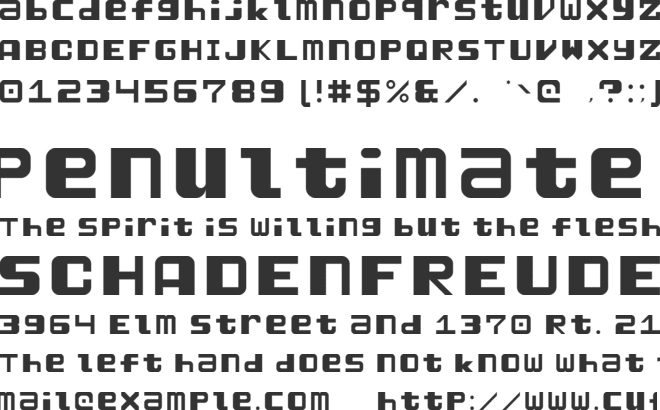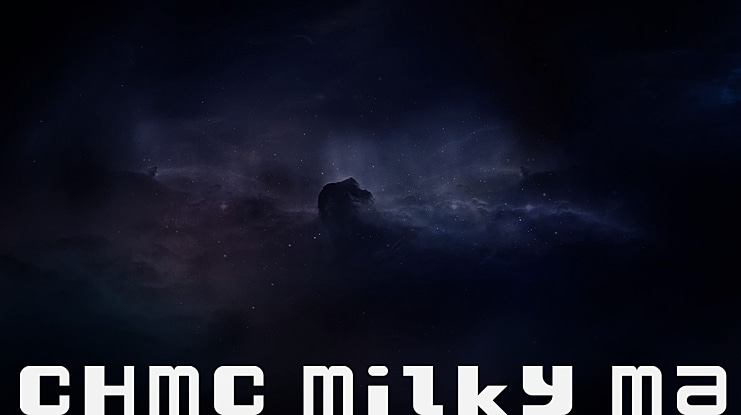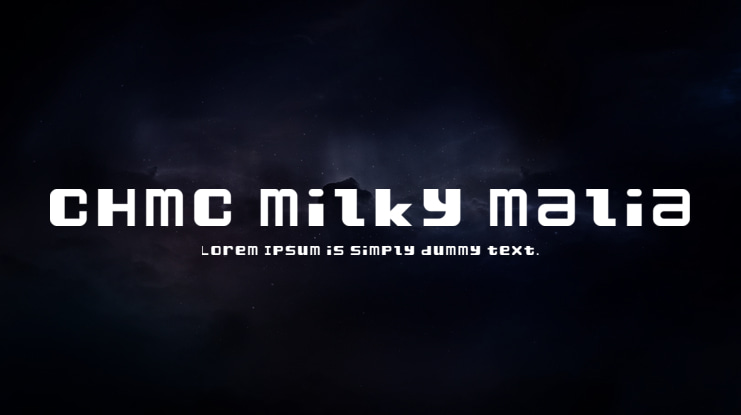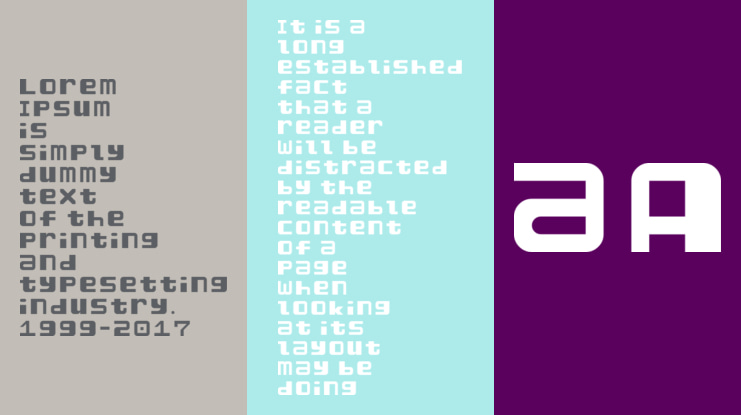
CHMC Milky Malia Font
Milky Malia is a techno font I made in Fontstruct. This is my first font to be made since I didn't use my old computer (the reason it's too old and some of the keys were malfunctioned.) The name comes from the characters in Twin Princess of Wonder Planet, named Moon Malia, the queen of Moon Kingdom and Milky, the princess of Moon Kingdom, Shade's little sister. I am sorry for being very, very, very late to upload more of my fonts.